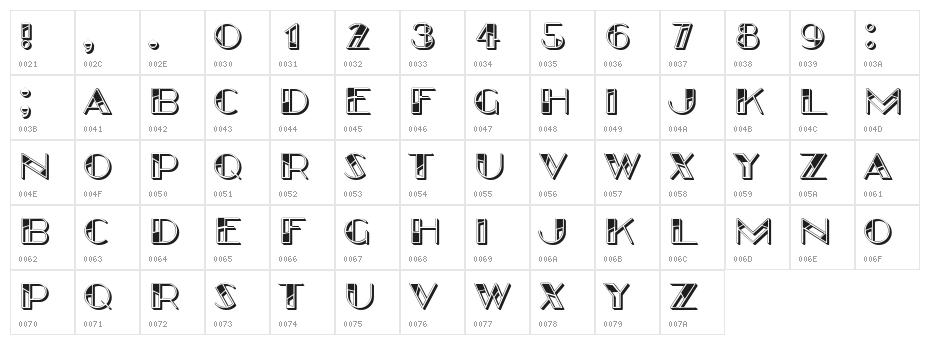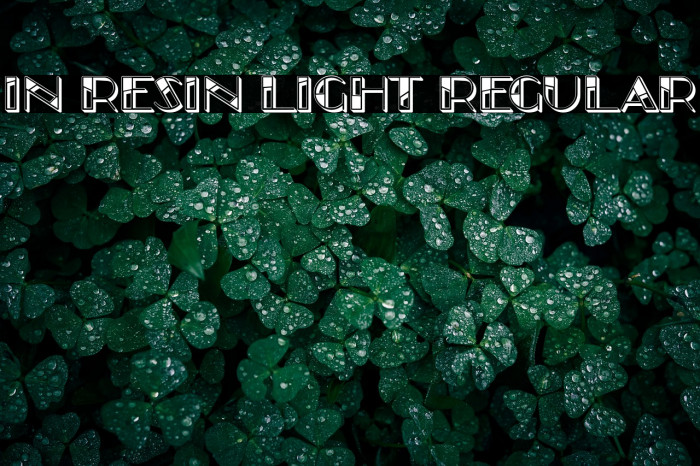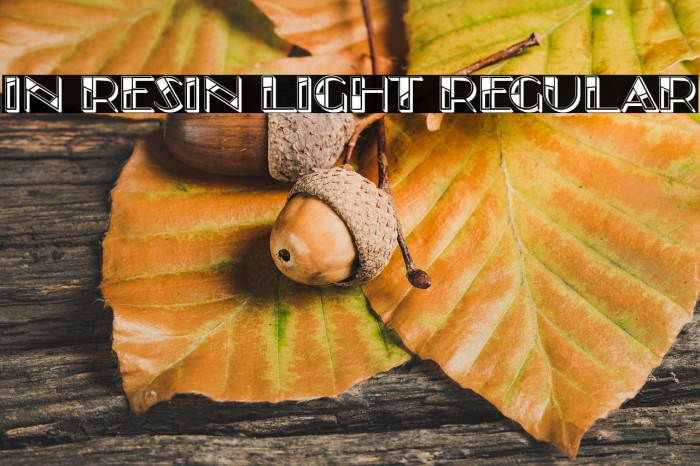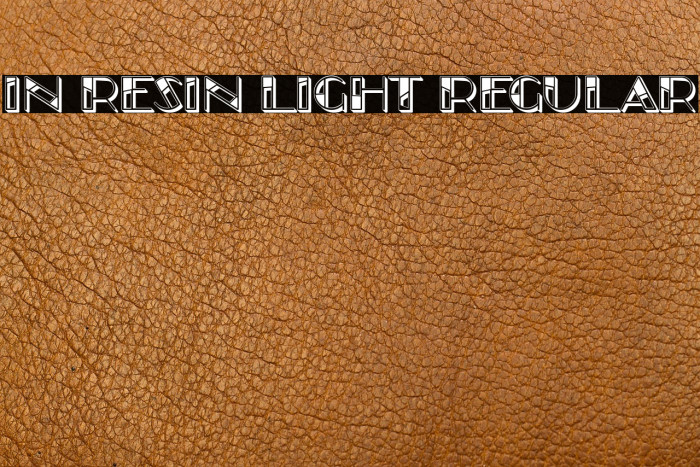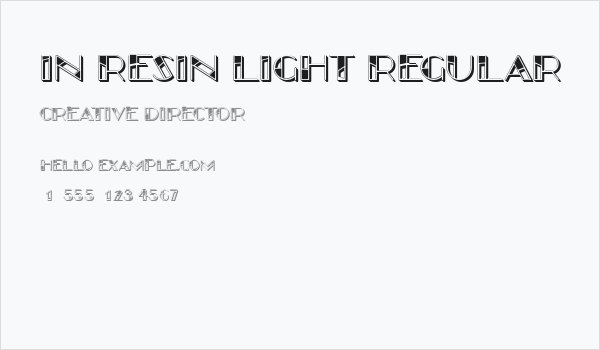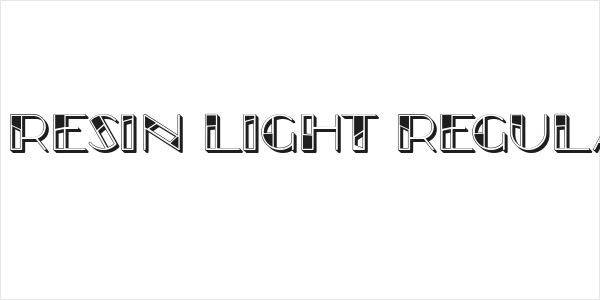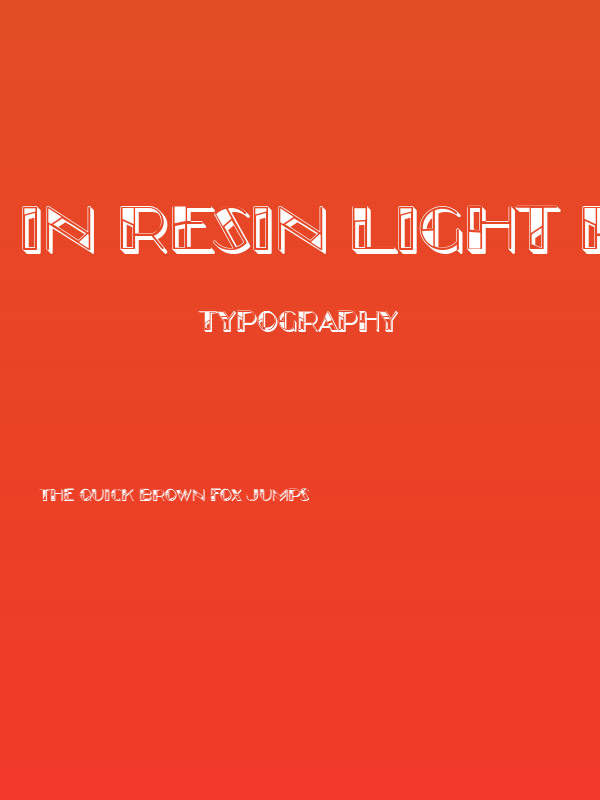
In Resin Light Regular Font
In Resin Light Regular Description
This font features a unique and bold design with a modern twist. Each character is crafted with a geometric style, incorporating sharp angles and clean lines. The letters have a distinct three-dimensional appearance, achieved through the use of contrasting strokes and shadowing effects. The uppercase and lowercase letters maintain a consistent style, providing a cohesive look across the alphabet. The numerals and special characters are designed to match the overall aesthetic, making this font versatile for various design needs. Its striking appearance makes it ideal for attention-grabbing headlines and creative projects.
| Proposed Projects | Ideal for branding, posters, headlines, and any project requiring a modern and eye-catching typeface. |